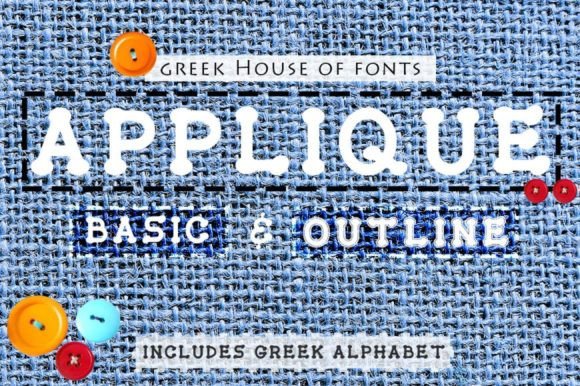
Step into the world of creativity and let Applique Font be your guide! This mesmerizing display font, a brainchild of Phelans-Fontastic-Ventures, is meticulously crafted to elevate your designs to new heights. With its charming and distinctive personality, Applique Font is not just a collection of letters; it's an artistic masterpiece waiting to be unleashed.
Immerse yourself in a realm of boundless imagination where Applique Font transforms your visions into tangible realities. Whether you're a seasoned graphic designer seeking to add a touch of exclusivity to your projects or an aspiring artist yearning to make a statement, this font is your perfect companion.
Applique Font is meticulously designed to capture the essence of elegance and playfulness. Its strokes dance across the page, creating a captivating visual symphony. Each letterform is a work of art, meticulously shaped to evoke emotions and leave a lasting impression.
With Applique Font, you hold the key to unlocking a world of endless possibilities. Design eye-catching logos that command attention, craft stunning posters that ignite imaginations, or weave captivating social media graphics that leave your audience spellbound. The possibilities are limitless, bound only by the reaches of your creativity.
Don't settle for ordinary fonts; embrace the extraordinary with Applique Font. Let your designs radiate with individuality, captivating audiences with their charm and sophistication. Dive into the depths of your imagination and watch as Applique Font transforms your concepts into breathtaking masterpieces.